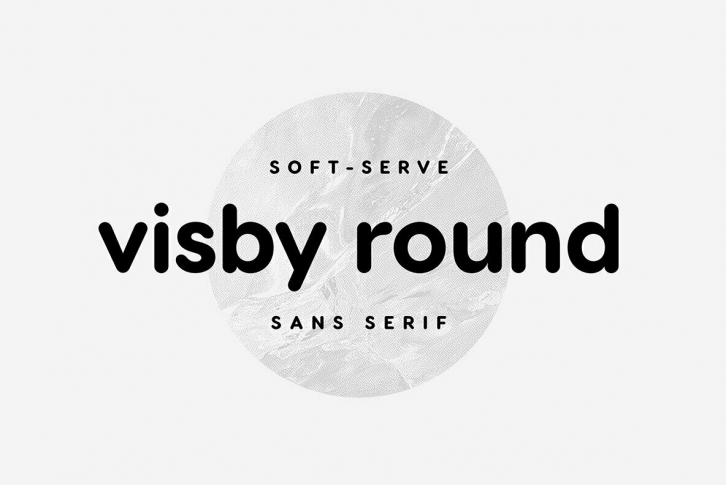
Visby Round takes the charismatic forms of its older sibling Visby and softens them, creating a friendly new look. Perfect anywhere you need a little smooth sans-serif goodness.
- Eight weights and obliques
- OpenType features, including alternates
- Latin and Cyrillic support